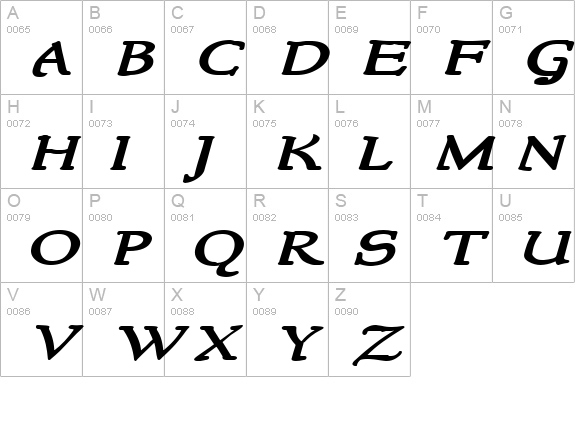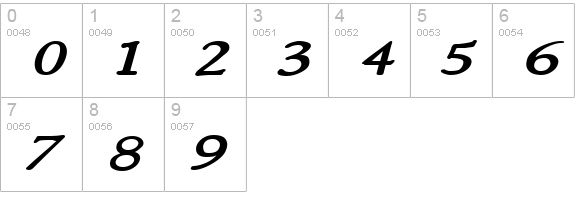
NewStyleWide Bold Italic Font Details
NewStyleWide Bold Italic is a strong, high-contrast, italic variant in the NewStyleWide typeface family \xE2\x80\x94 well suited to headlines, attention-grabbing titles, and strong calls-to-action.
Introducing NewStyleWide Bold Italic font - a modern and stylish typeface that exudes confidence and sophistication. With its bold weight and elegant italics, this font is perfect for making a statement in your designs. The wide letterforms provide a unique and eye-catching look that commands attention. What sets NewStyleWide Bold Italic font apart is not only its striking appearance but also its versatility. Whether you're designing a poster, logo, headline, or any other creative project, this font will add a touch of flair and professionalism. And the best part? NewStyleWide Bold Italic font is available for free download at FontsMarket.com. That's right, you can elevate your designs with this premium font without having to spend a penny. Don't miss out on this opportunity to enhance your projects with the sleek and modern look of NewStyleWide Bold Italic font. Download it now and let your creativity shine!